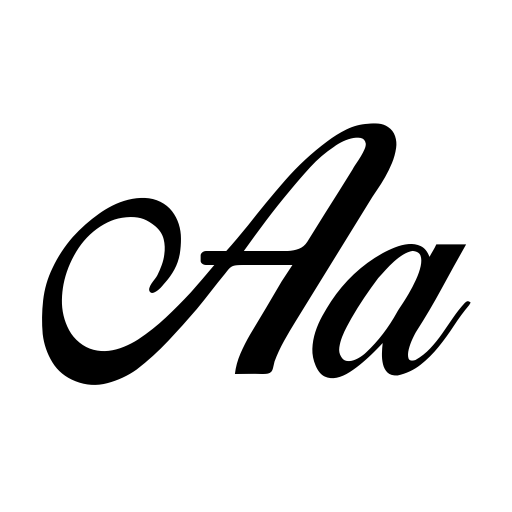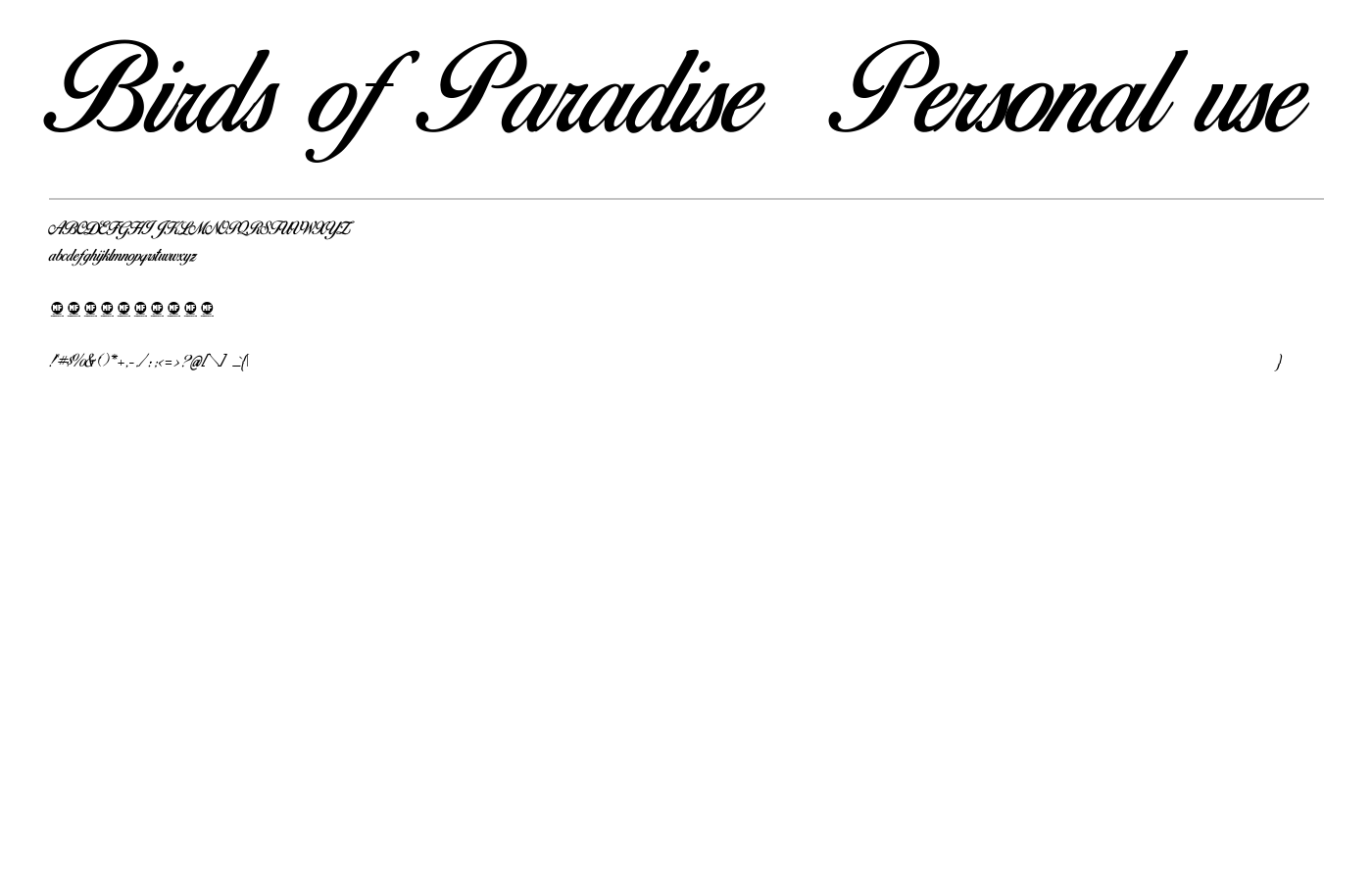
Birds of Paradise is an elegant script font characterized by its fluid, cursive strokes and delicate contrast between thick and thin lines. It features classic calligraphic letterforms with graceful loops and swashes, making it perfect for sophisticated, romantic, or vintage-inspired designs. This font works beautifully in invitations, branding for luxury or beauty products, and decorative headlines where a refined, personal touch is desired.
Birds of Paradise Personal use Font
About Birds of Paradise Personal use Font
| Designer | Guilhem GRECO |